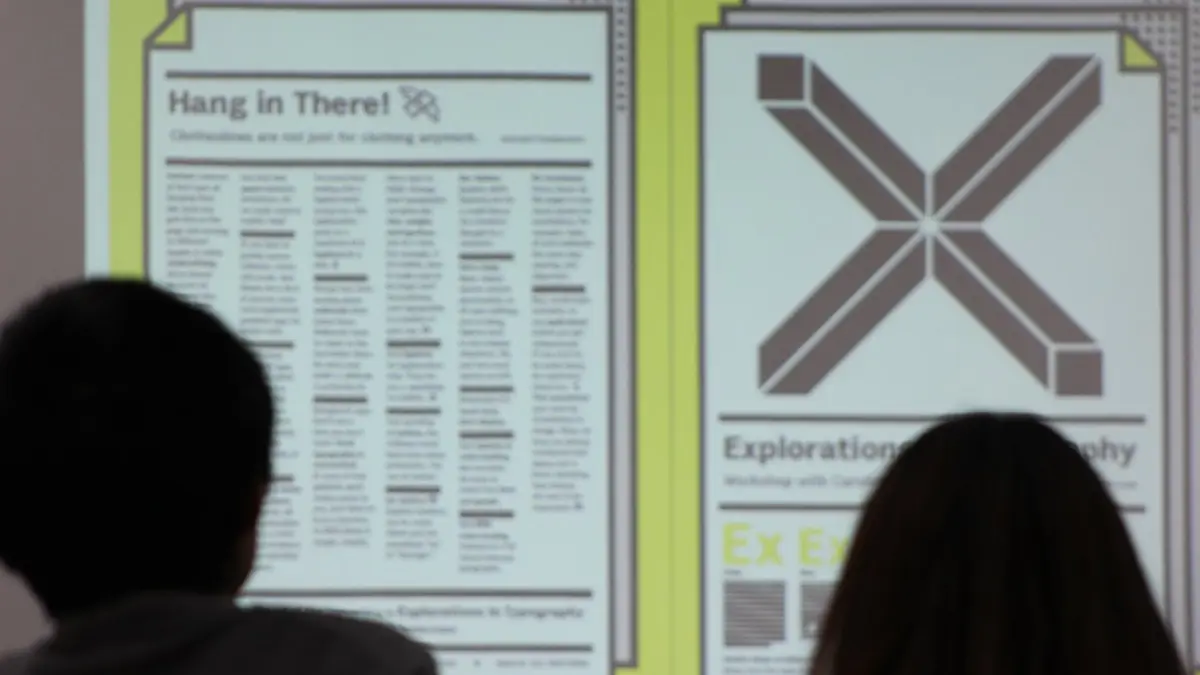
Introduction: The Global Resurgence of Typography
In the digital age, typography has transcended its traditional role as a mere vehicle for language, evolving into a dynamic art form and a cornerstone of modern digital design. From the intricate kerning of mobile interfaces to monumental branding campaigns, type shapes how we experience the modern world. This September, the global typography community is coming together in a series of landmark events that celebrate the craft, science, and future of lettering.
Spanning continents, from the historic streets of Antwerp to the sunlit avenues of Barcelona, and stretching across major creative hubs in New York and San Francisco, type enthusiasts, engineers, designers, and foundries are uniting. Major industry players are stepping up to support these gatherings, fostering a culture of collaboration, critique, and continuous learning. This comprehensive overview explores the month’s premier typographic events, detailing the schedules, key presentations, international expansions, and the broader implications of these gatherings for the future of digital and print design.
The typographic calendar for September is exceptionally robust, anchored by two major milestones: the annual conference of the Association Typographique Internationale (ATypI) and the continued international expansion of the grassroots critique organization TypeThursday.
- ATypI 2018 Antwerp: The prestigious annual conference opens its doors in Antwerp, Belgium, bringing together global typographic experts for a comprehensive program of workshops, symposia, and keynote lectures.
- Industry Leadership & Expertise: Representatives from major tech and design ecosystems—including prominent figures from type tool development and core software engineering teams—are slated for key speaking engagements.
- TypeThursday’s European Growth: The grassroots critique community is officially launching its second European chapter in Barcelona on September 20th, bridging the gap between local designers and international typographic standards.
- Global Community Meetups: Beyond Antwerp and Barcelona, localized TypeThursday chapters and font-focused social events continue to thrive in major cultural capitals including London, New York, and San Francisco.
Chronology of Events: A Packed September Schedule
To understand the rhythm of this month’s typographic celebration, it is helpful to trace the chronological rollout of events, key panels, and celebrations taking place across the globe.
Week 1: Setting the Stage in Europe and North America
As September begins, local meetups in cities like London and New York kick off a month dedicated to letterforms. Designers gather in casual spaces to discuss micro-typography, variable fonts, and the challenges of responsive web design. These grassroots gatherings serve as a prelude to the heavy-hitting academic and industry conferences that follow mid-month.
Mid-September: The ATypI Antwerp Showcase
The focal point of the month arrives in Belgium with ATypI 2018. The conference schedule is dense, packed with academic research papers, technical demonstrations, and networking opportunities.
- Wednesday Morning, Day One of Major Panels:
- 9:25 AM: Frank Greißhammer takes the stage as part of the highly anticipated Type Toolmakers Panel. This session brings together the engineers and designers behind modern font-creation software to discuss how changing workflows demand smarter, faster, and more adaptable tools.
- 11:40 AM: Vinod Balakrishnan, representing the Photoshop core engineering team, delivers a presentation titled "Evolution of digital typographic needs." Balakrishnan’s talk bridges the gap between software capability and designer intent, examining how powerhouse imaging applications have adapted to support complex scripts, variable fonts, and high-resolution multi-screen environments.
- Saturday Evening, The Grand Finale:
- 10:00 PM: The conference culminates in a vibrant closing party. Attendees will hear brief remarks from industry leaders Frank Greißhammer and Taro Yamamoto, reflecting on the state of the industry, the connections forged during the week, and the horizon of typographic innovation.
Late September: Barcelona Joins the Global Fold
On September 20th, the typographic map expands further as TypeThursday Barcelona officially launches. This event marks the organization’s second permanent European outpost, promising a monthly cadence of constructive critiques, peer-to-peer mentoring, and community building for local Spanish and international designers alike.
Supporting Data and Context
The vibrancy of these September events is underpinned by shifting trends in the design industry. Understanding the data and technical evolution driving these gatherings provides critical context for why events like ATypI and TypeThursday are more relevant than ever.
The Rise of Variable Fonts
Introduced as an open standard in 2016, variable fonts have matured significantly. By allowing a single font file to behave like an entire family—seamlessly interpolating weight, width, optical size, and slant—variable fonts have revolutionized web performance and design flexibility. Presentations at ATypI 2018, particularly those concerning digital typographic needs and toolmaking, heavily reflect the industry’s ongoing adaptation to variable architecture.
As ATypI 2018 concludes its successful run in Antwerp and TypeThursday plants its flag firmly in Barcelona—while continuing vibrant traditions in San Francisco, New York, and beyond—the message is clear: typography is a thriving, global, and deeply collaborative art.